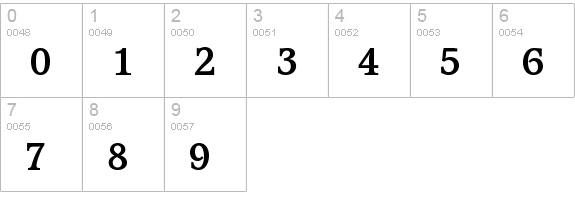
AccoladeEF-Medium Font Details
AccoladeEF-Medium is a balanced, medium-weight variant in the AccoladeEF typeface family \xE2\x80\x94 well suited to sub-headlines, navigation, and balanced editorial work.
AccoladeEF-Medium is a versatile and elegant font that exudes sophistication and style. With its sleek and modern design, this font is perfect for a wide range of projects, from branding to editorial design. The medium weight of AccoladeEF-Medium strikes the perfect balance between readability and impact, making it suitable for both headlines and body text. What sets AccoladeEF-Medium apart is that it is available for free download at FontsMarket.com. This means that you can easily access this high-quality font without any cost, making it a valuable addition to your font library. Whether you are working on a professional project or a personal design, AccoladeEF-Medium will elevate your work with its timeless appeal and impeccable craftsmanship. Download it today and see the difference it can make in your designs.